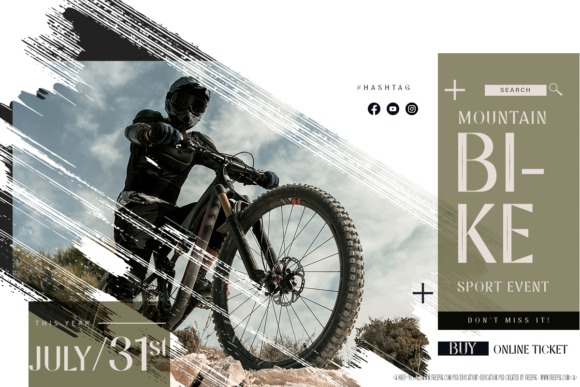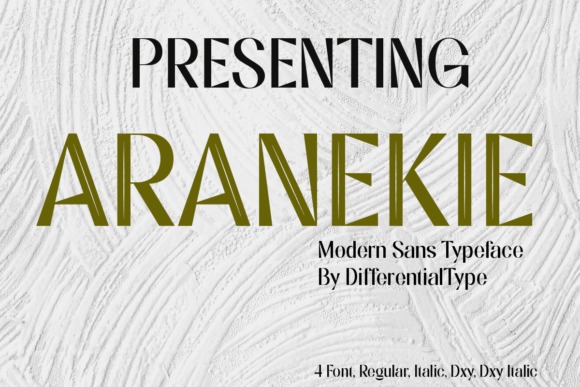
Aranekie Modern Sans Font
Aranekie Modern Sans Font, is a modern sans serif font inspired by bold and thin serif fonts. Aranekie comes in 4 styles. You can use this font for documents, logos, pamphlets, book covers, and many other projects.